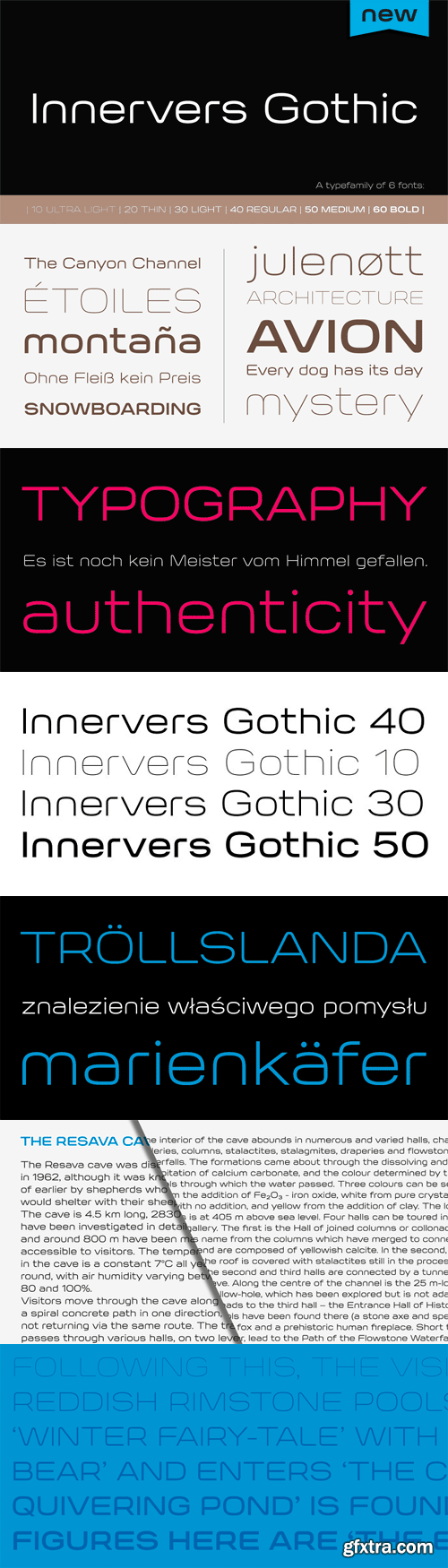
Innervers Gothic Font Family
Innervers Gothic is a modern, geometric sans serif typeface. It is designed with a very low stroke contrast. The initial design inspiration was in the shape of superellipse. The family consists of six weights ranging from 10 to 60: 10 Ultra Light, 20 Thin, 30 Light, 40 Regular, 50 Medium and 60 Bold. It is a display typeface, well suited for headlines, logo, advertising etc. Thanks to its tall x-height and its wide and geometric forms of letters, it is also very readable in small text sizes. Opentype features include standard ligatures, fractions, proportional/tabular figures, numerator and denominator numbers, as well as superscript and subscript numbers.